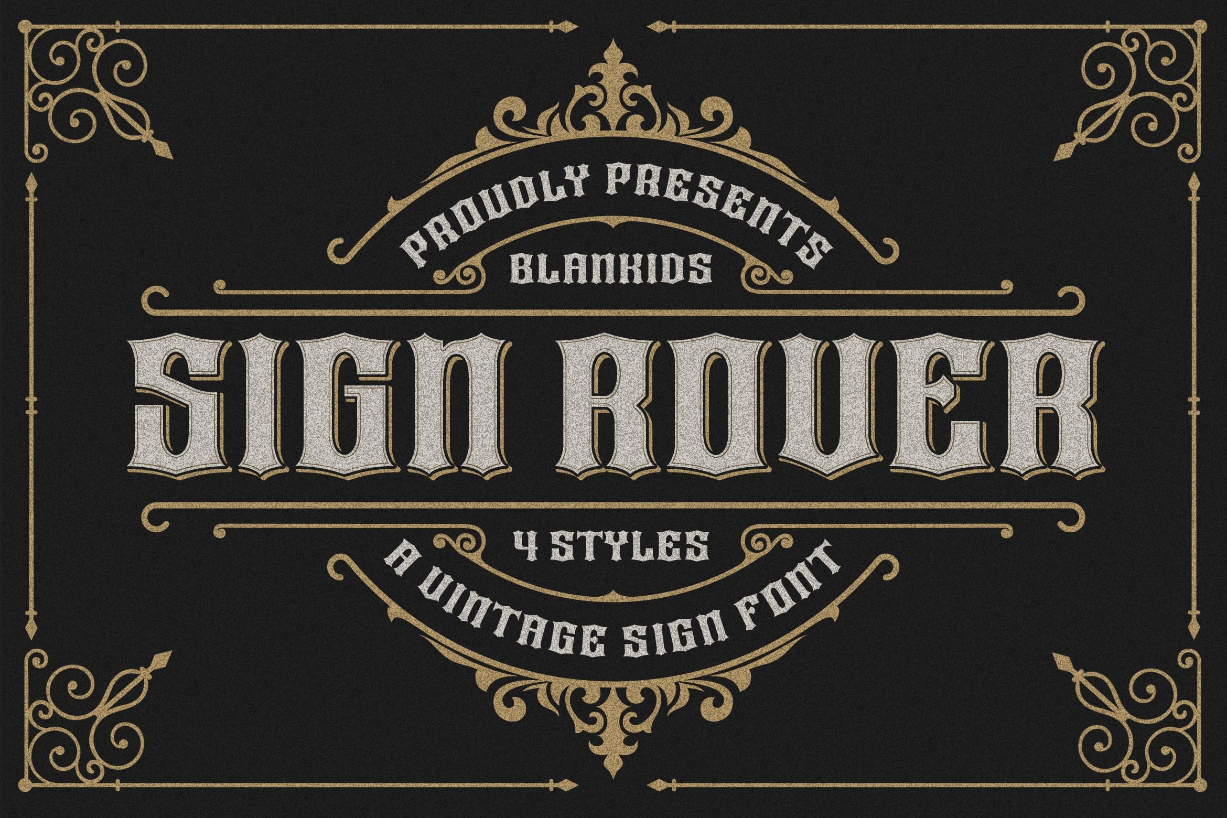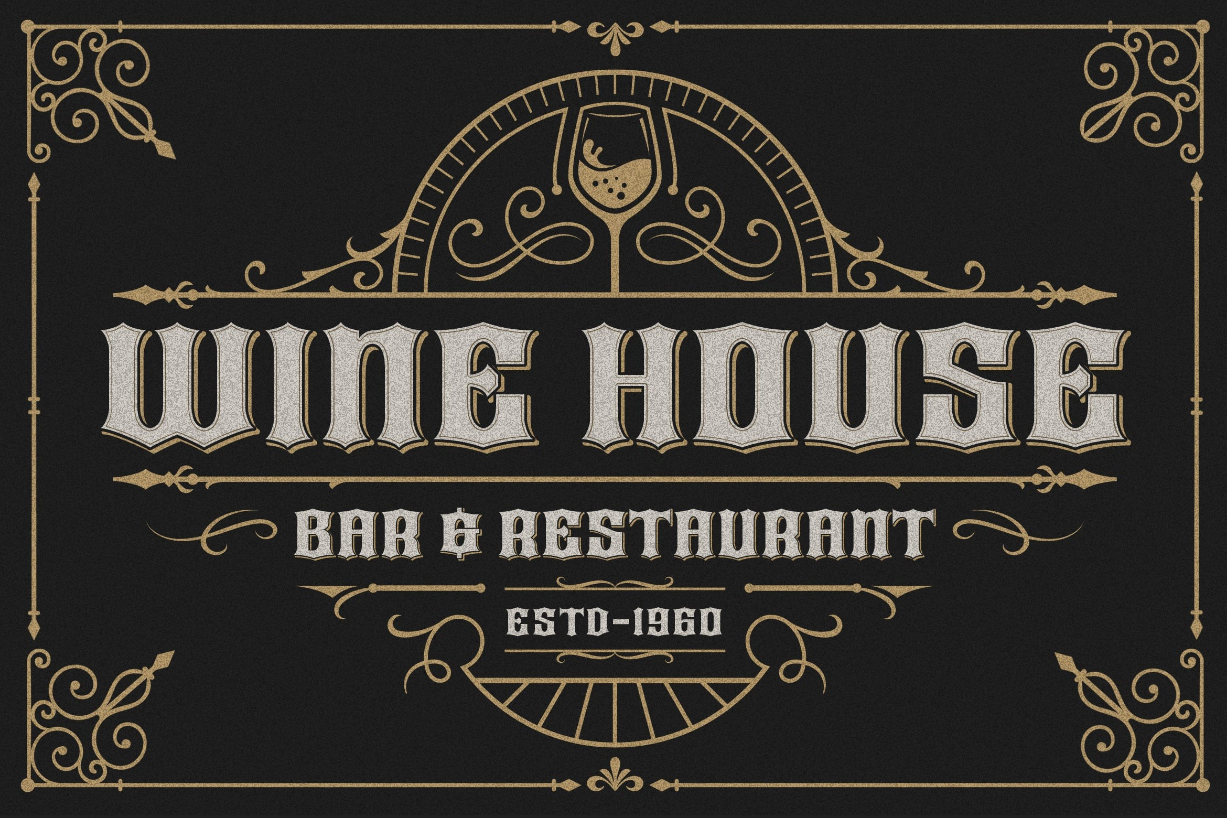
About Sign Rover Font
Sign Rover is a modern and attractive blackletter font that has the perfect blend of tradition and modernity. It features a sleek, updated take on classic calligraphic elements, resulting in a bold and stylish font that is sure to make a statement. Ideal for use in logos, headlines, titles, and other design projects that demand a touch of sophistication and elegance.